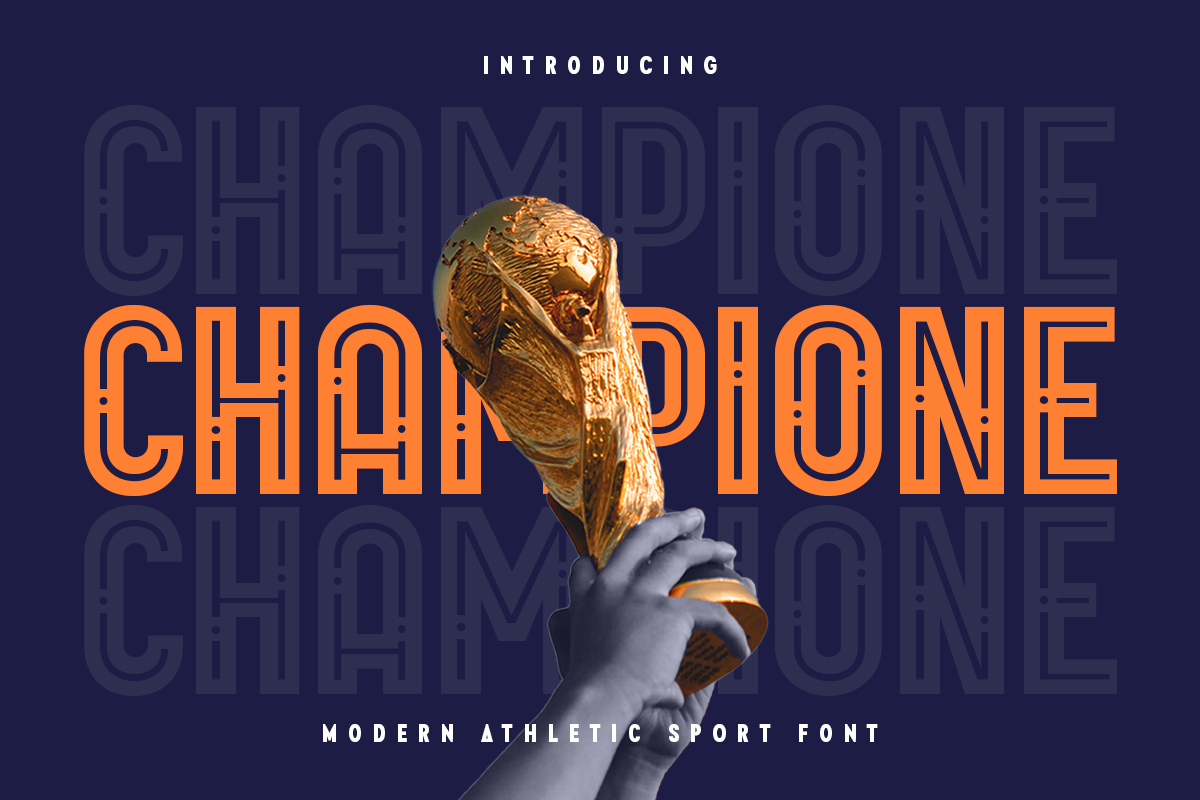
Champione - Athletic Sport Font
Dominate the field with Champione - the bold athletic font that brings championship energy to every design. This modern futuristic sport font delivers stylish, fancy and unique characters perfect for sport events. Create stunning variations and unique shapes in seconds with its exceptional character set that maintains high legibility across all applications. Ideal for sport branding projects, jersey designs, logos, wedding designs, social media posts, advertisements, product packaging, product d...